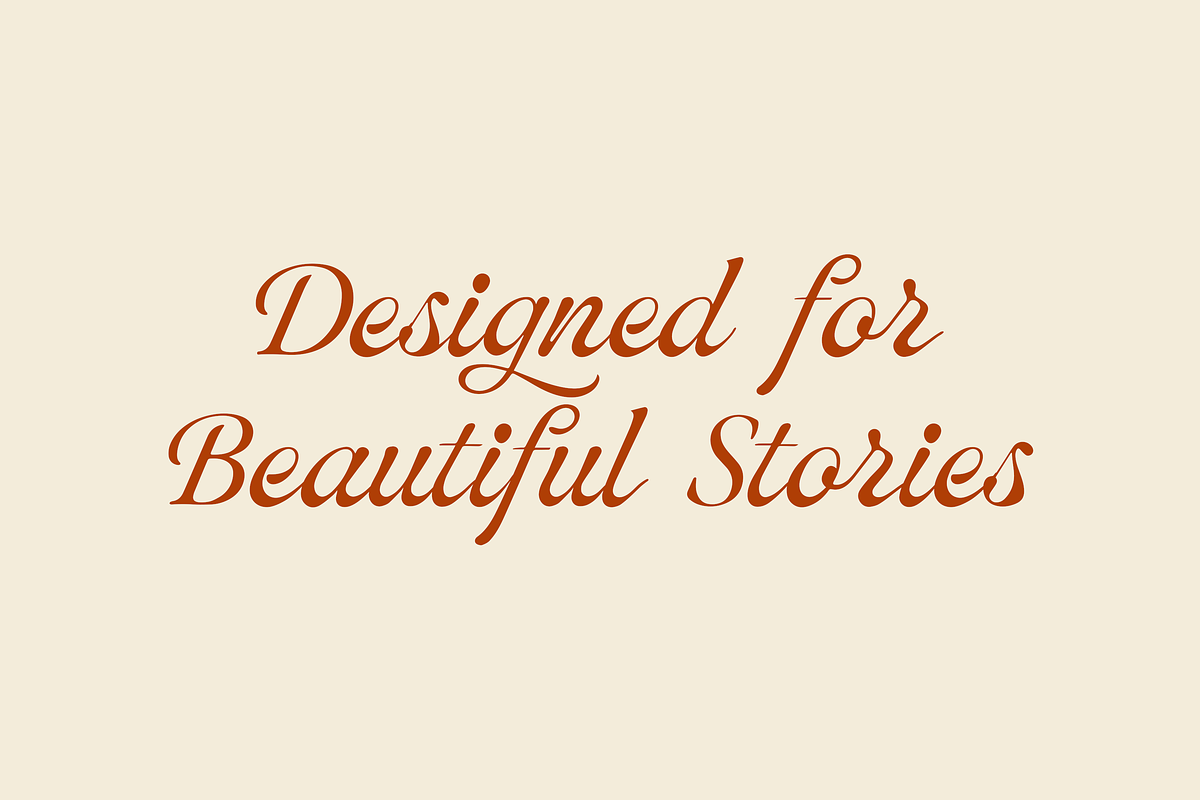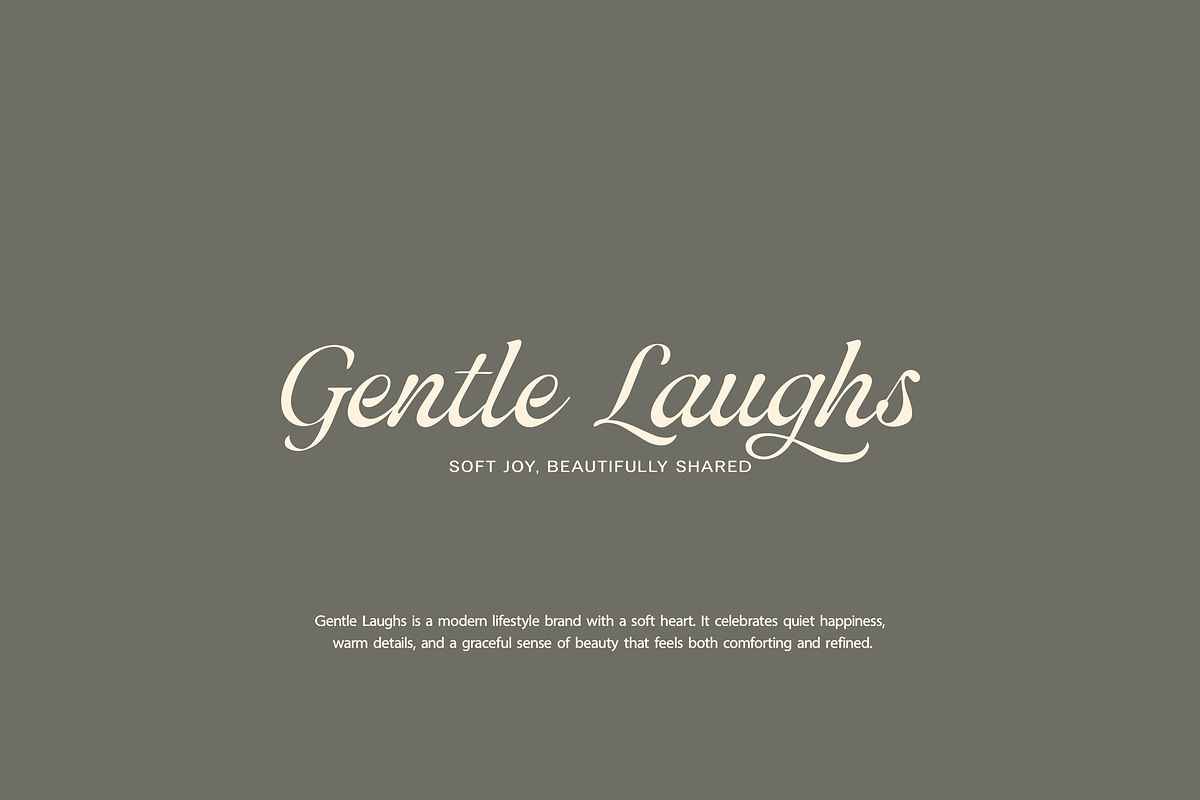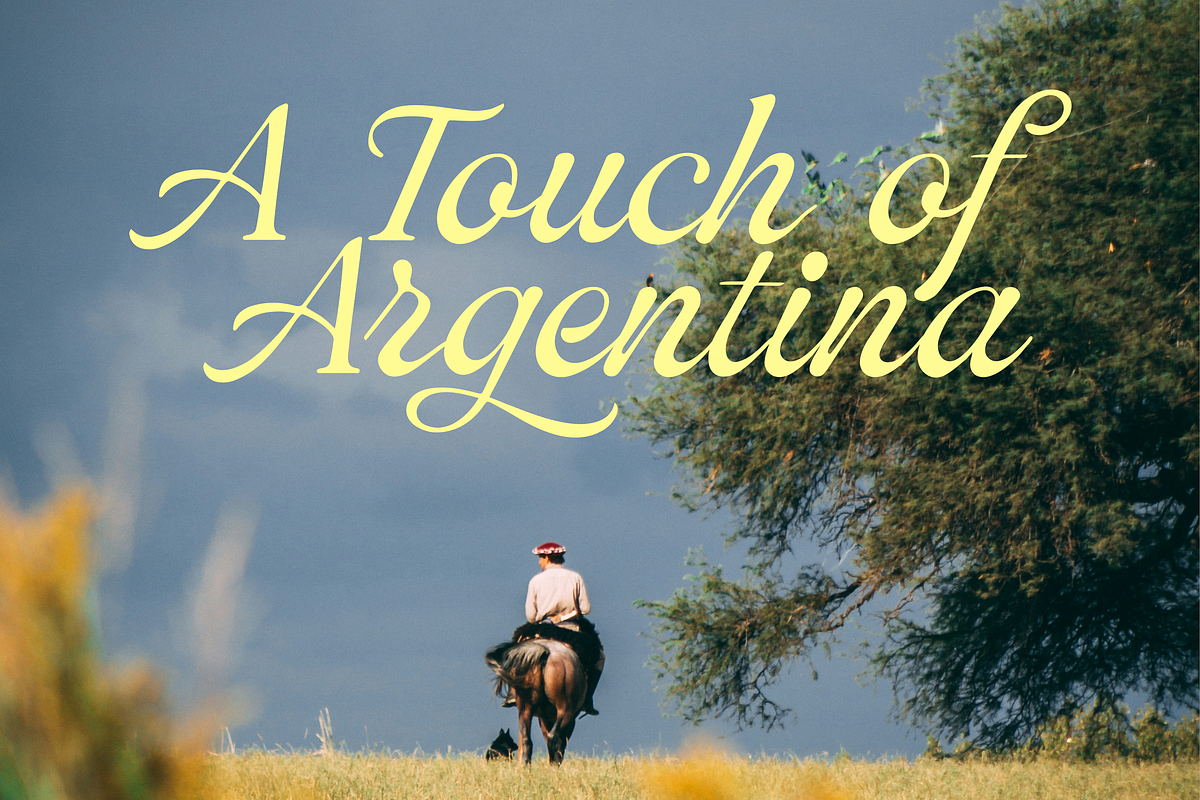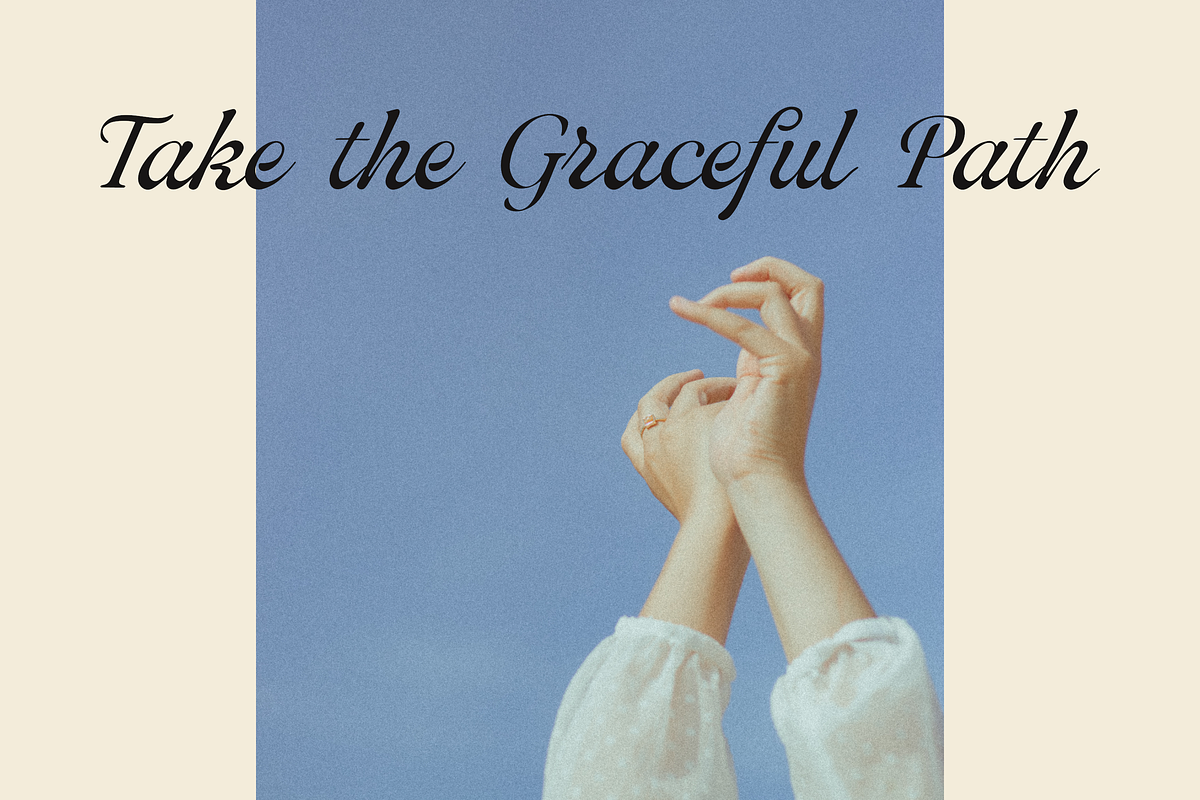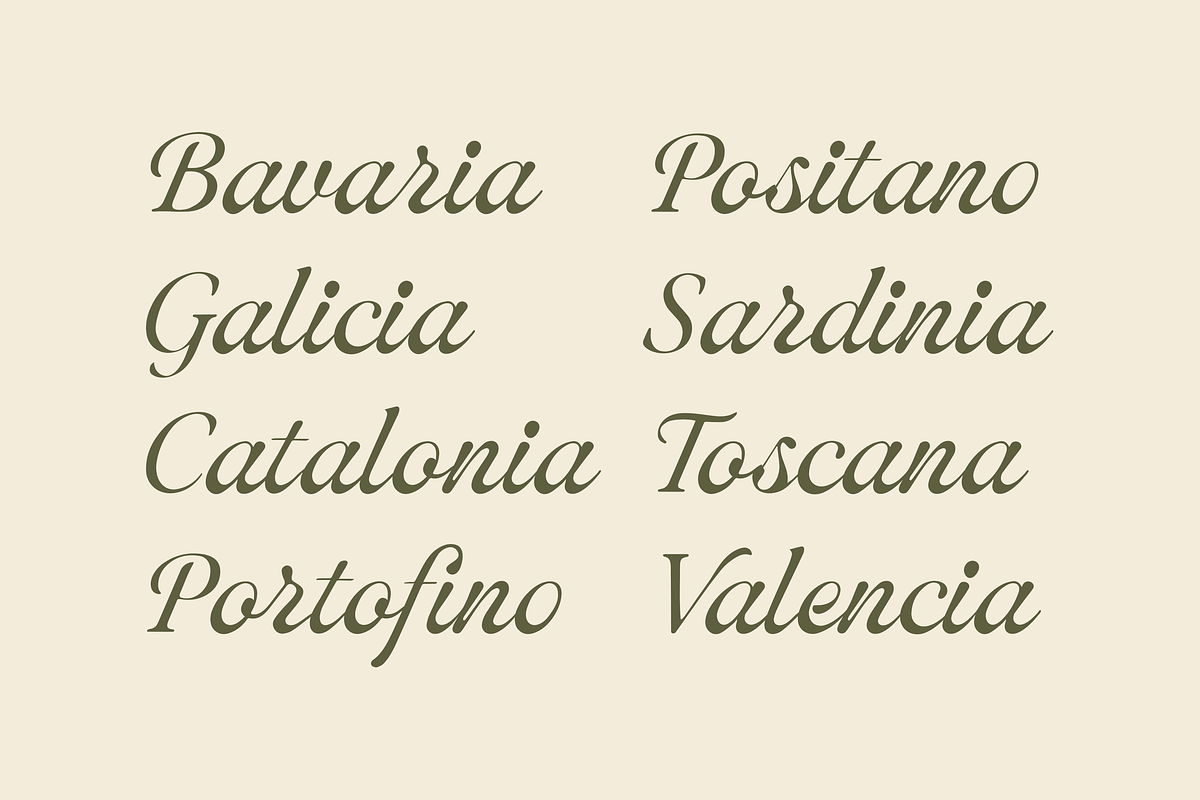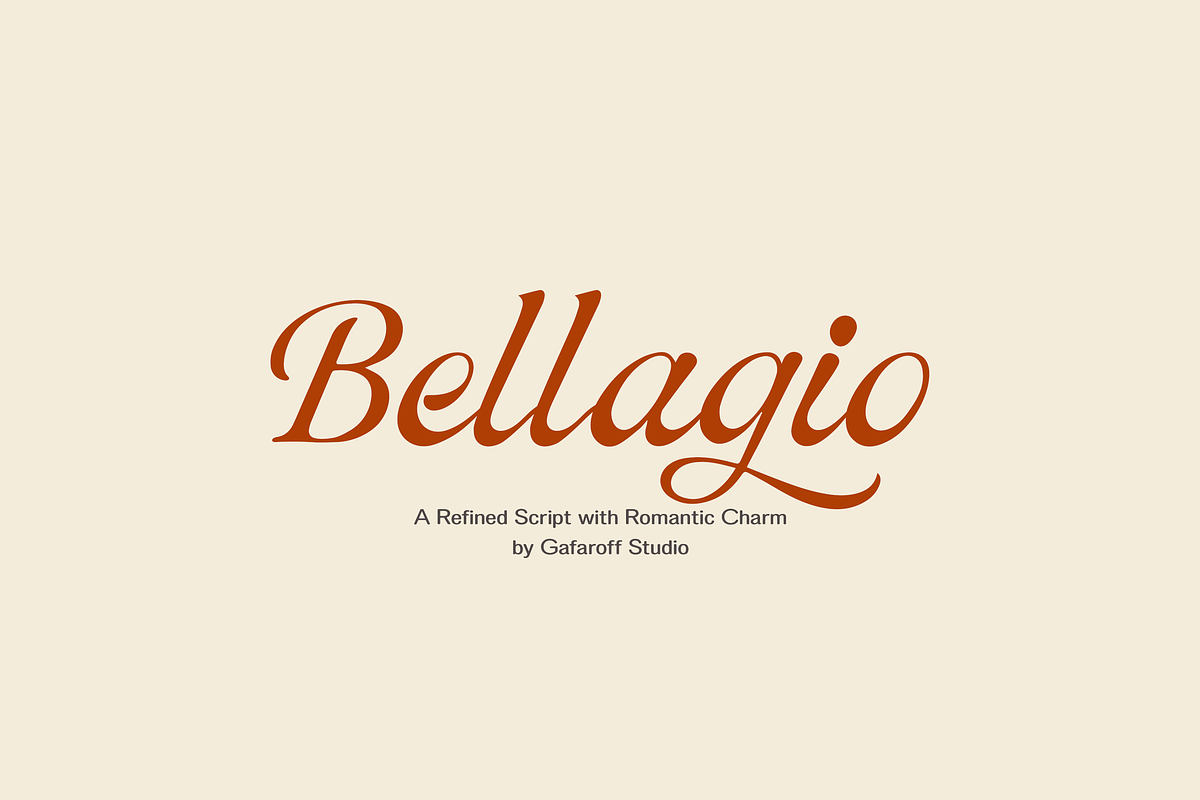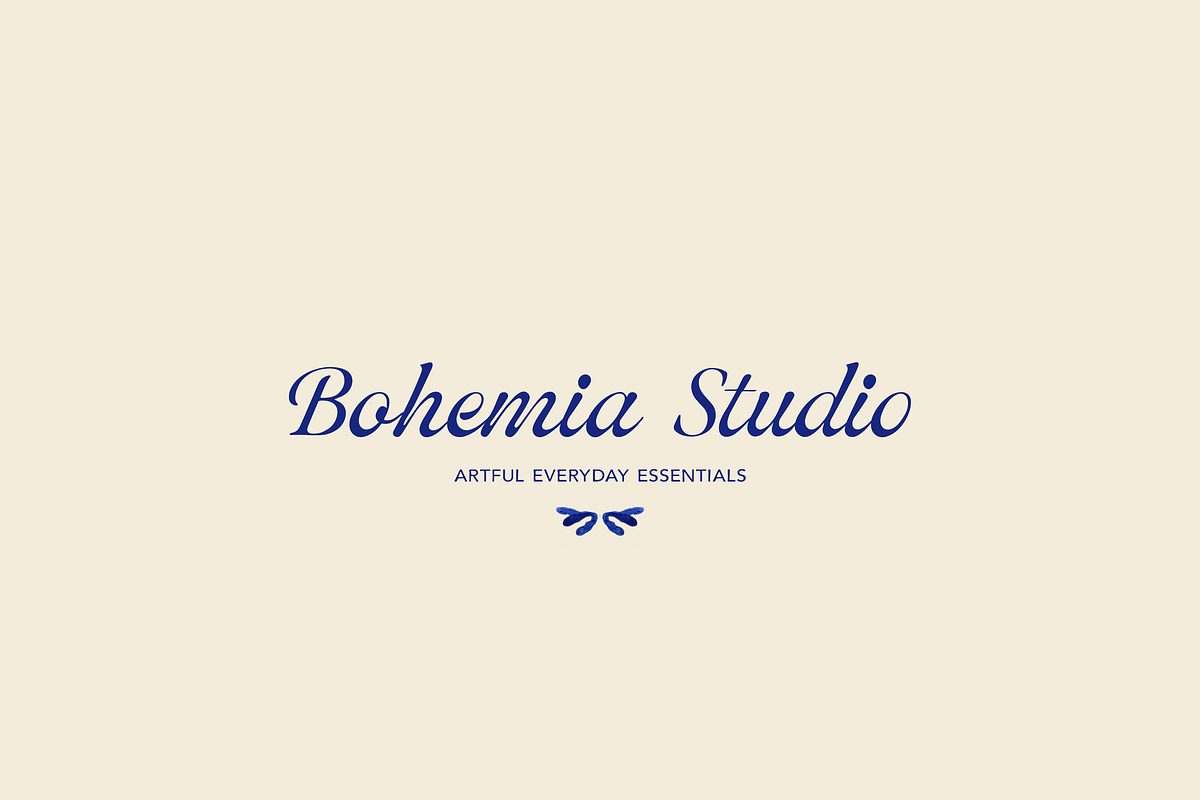
Bellagio – Refined Romantic Script
Bellagio is a refined script font designed for beautiful stories.
With its graceful curves, flowing rhythm, and polished handwritten style, Bellagio brings a soft romantic elegance to any design. The letterforms feel feminine, timeless, and expressive, making this font a beautiful choice for projects that need charm, refinement, and a touch of luxury.
Bellagio works especially well for branding, logos, wedding stationery, packaging, social media graphics, quotes, editorial layouts, and destination-inspired designs. Whether you're creating a boutique identity, a romantic invitation suite, or elegant content for print and digital use, Bellagio adds a stylish and memorable finish.
Its smooth flow and delicate character make it ideal for short phrases, brand names, signature-style compositions, and sophisticated visual storytelling.